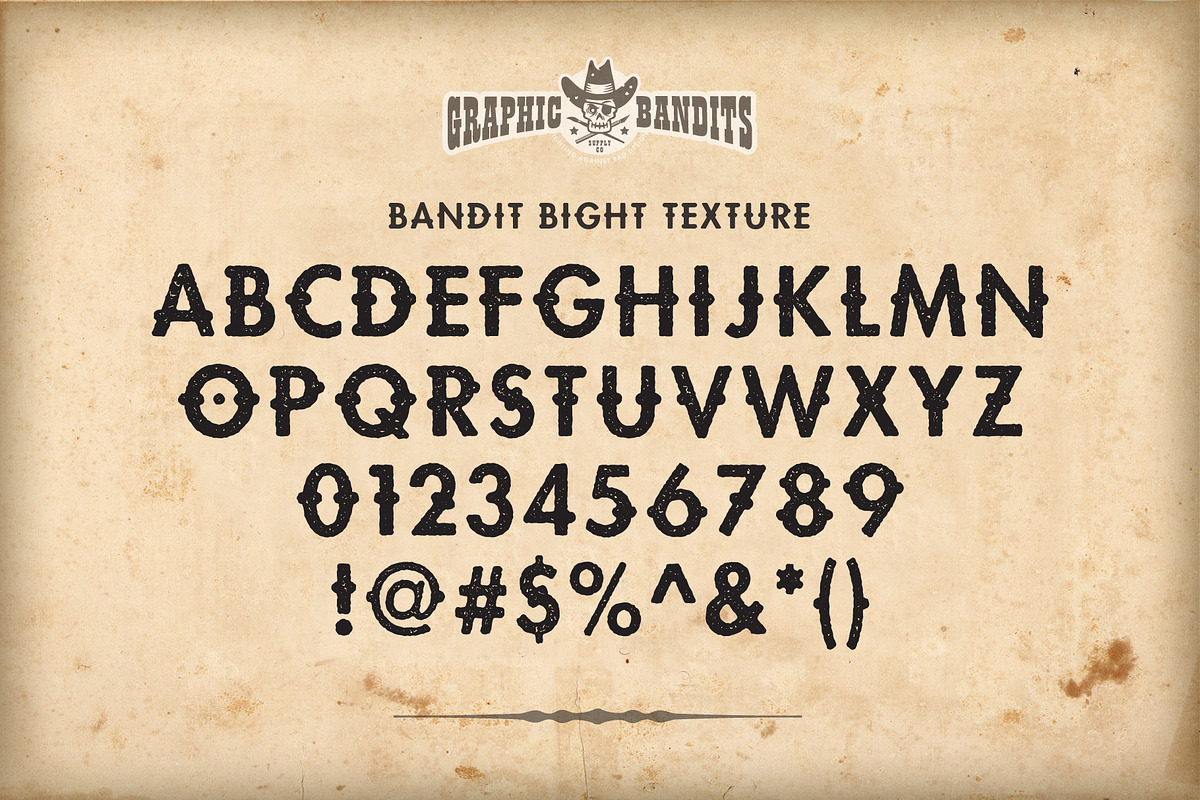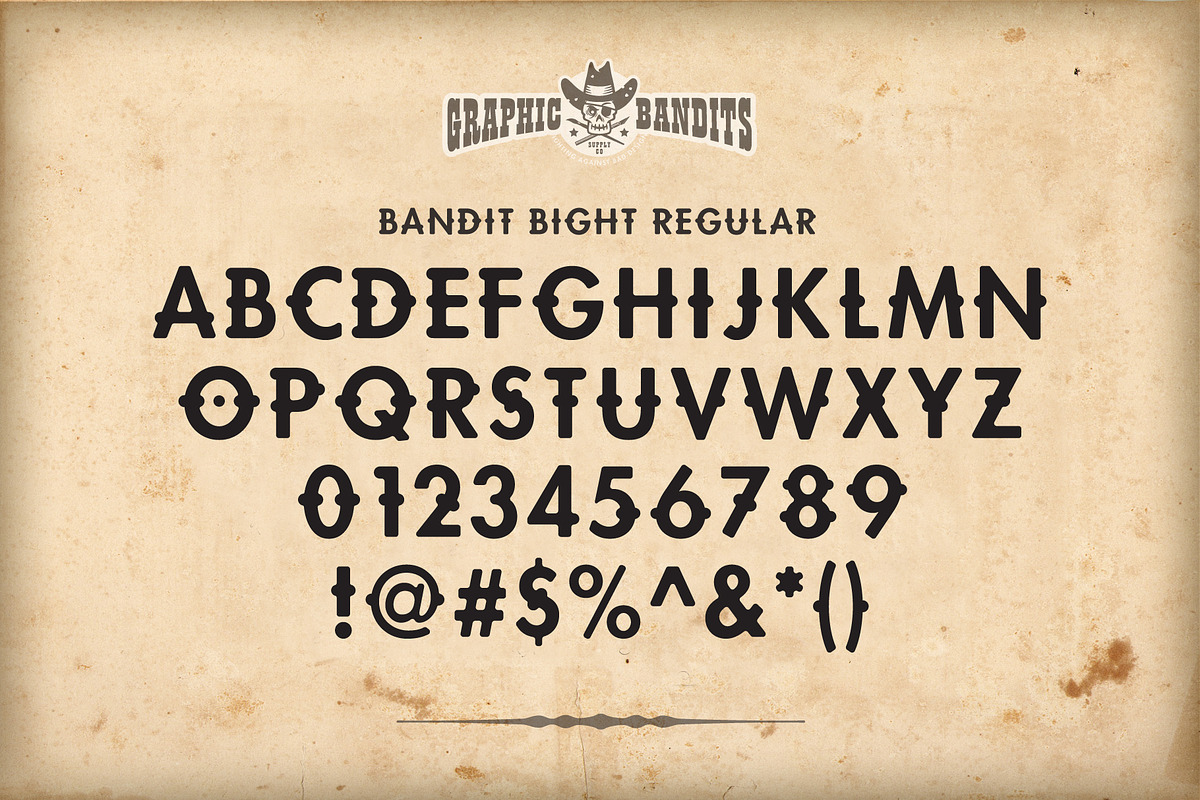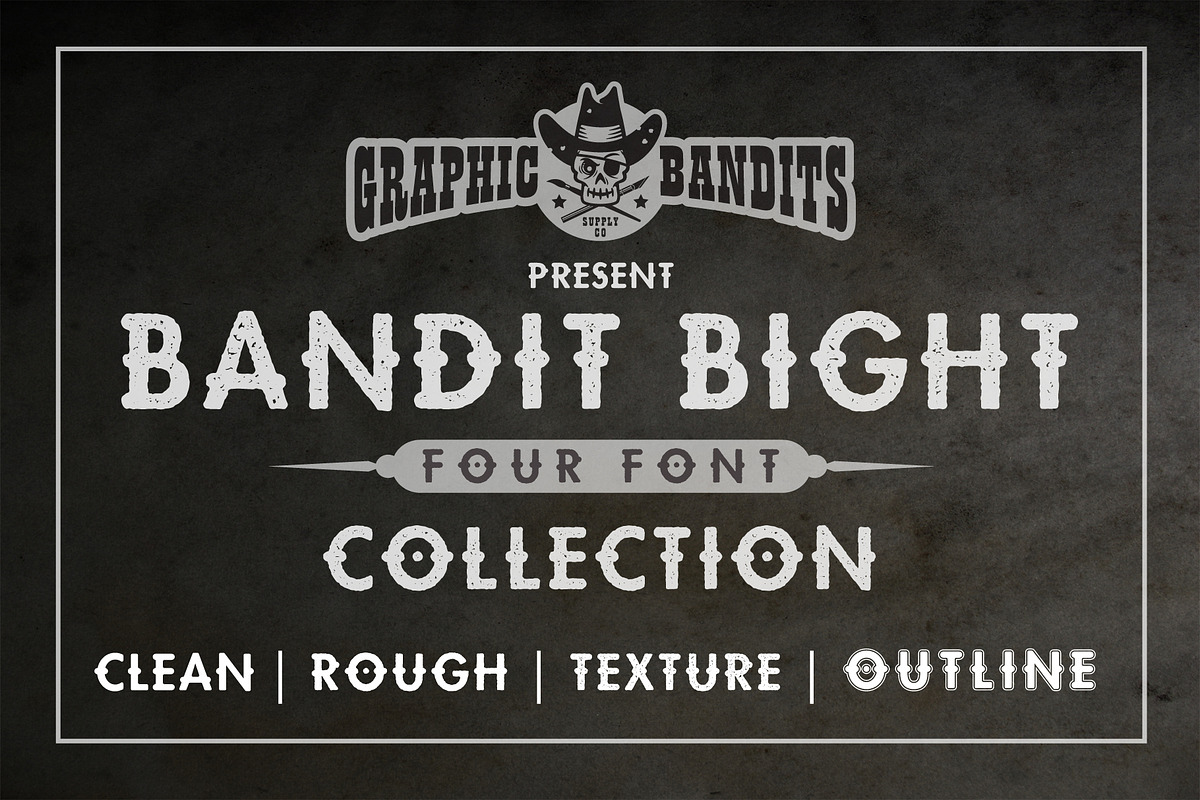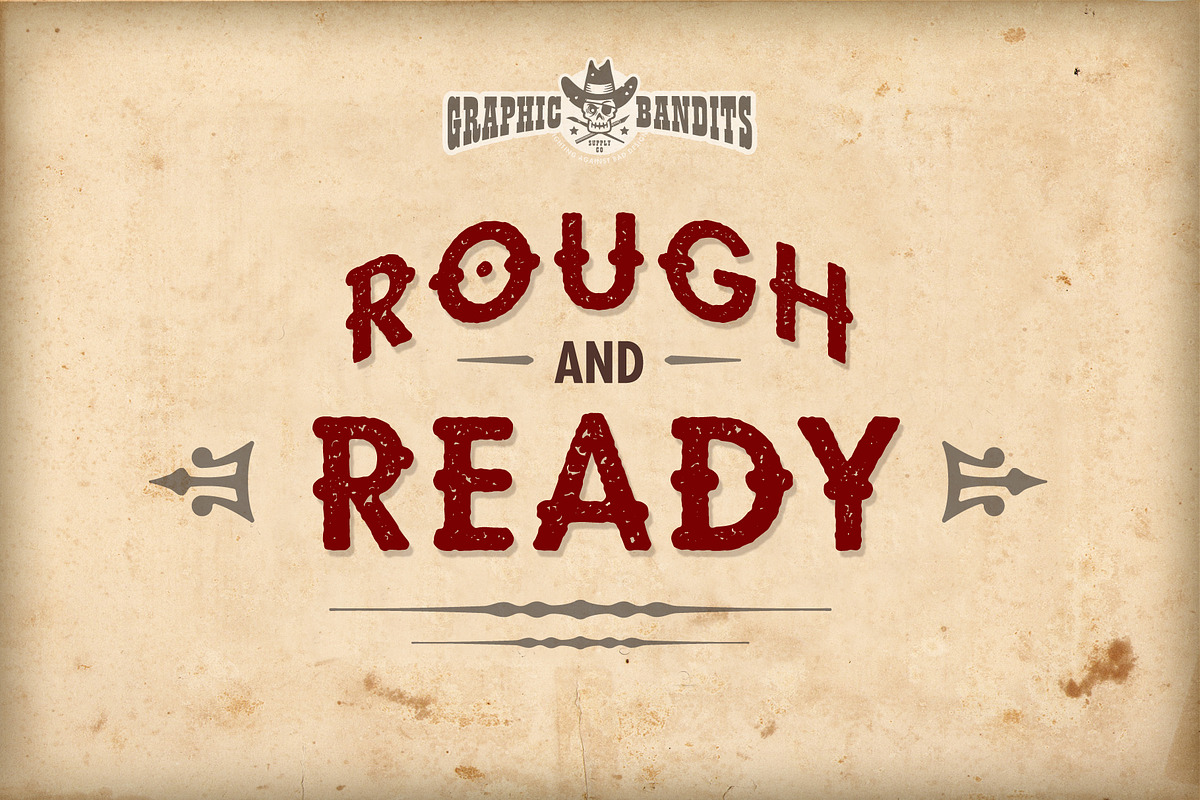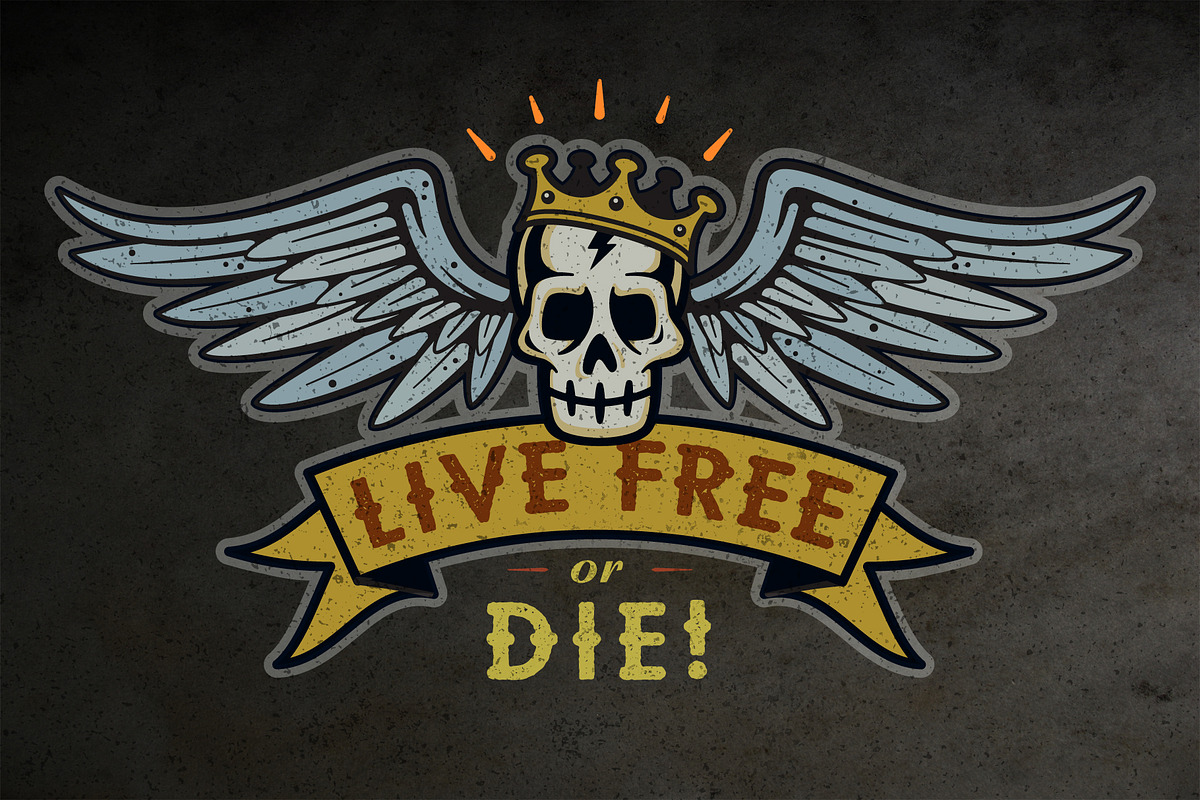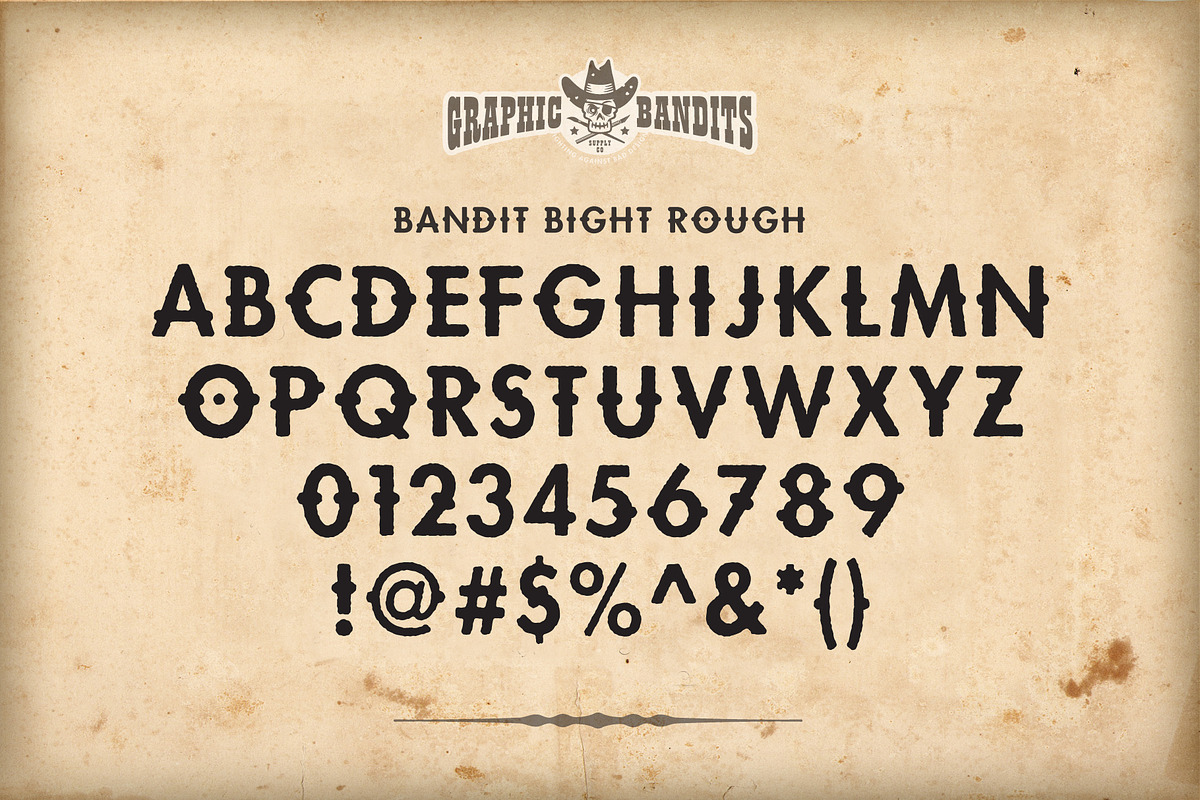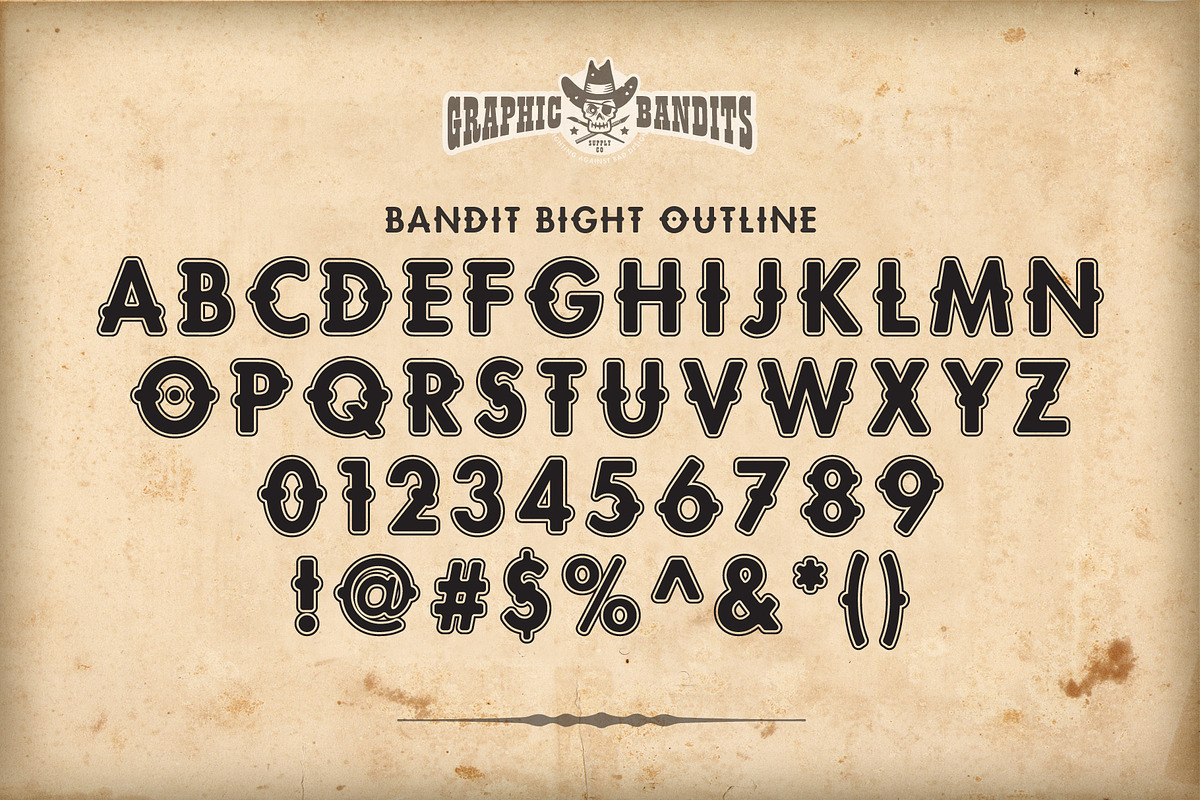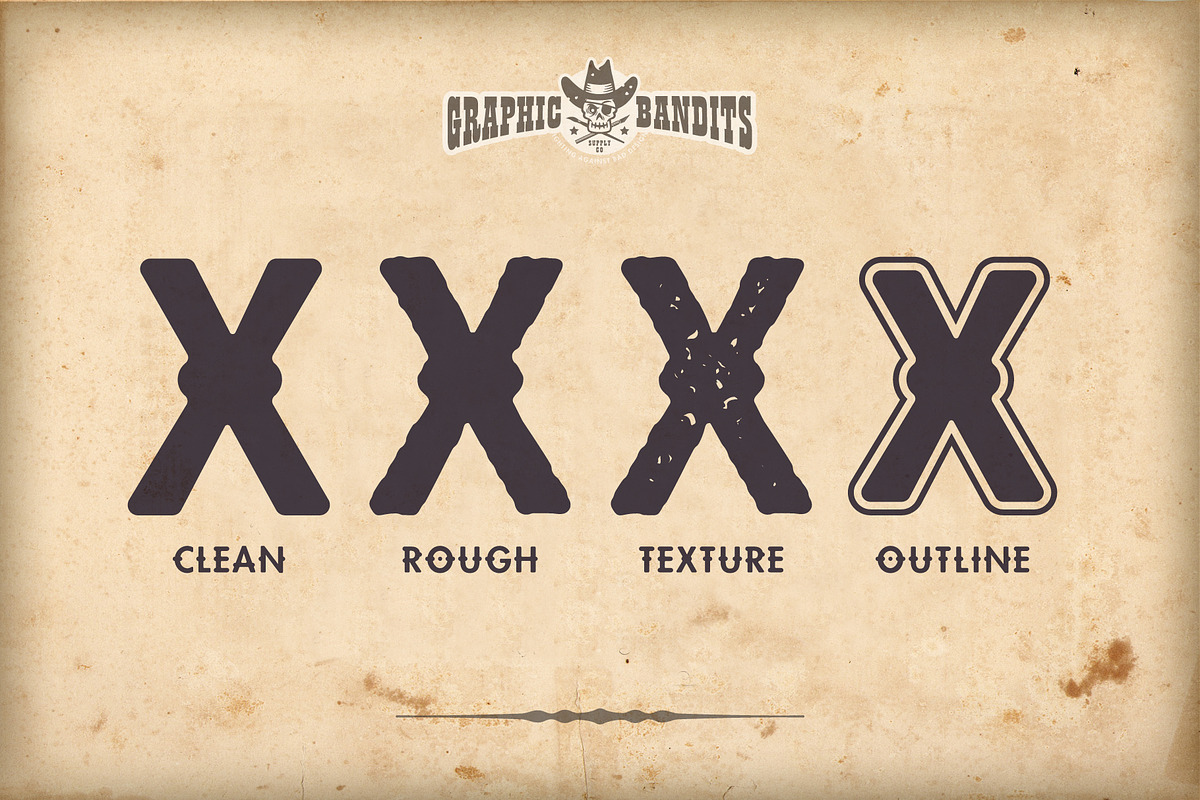
Bandit Bight - Font Family (4)
An all caps font family which includes regular, rough, textured, and outline versions.
A very forgiving typeface, with its four different styles, it can be used on all types of design projects and logos. Use it for greeting cards or package design, brand identity, crafts, book titles, vintage or retro designs, or anything else you can think of.